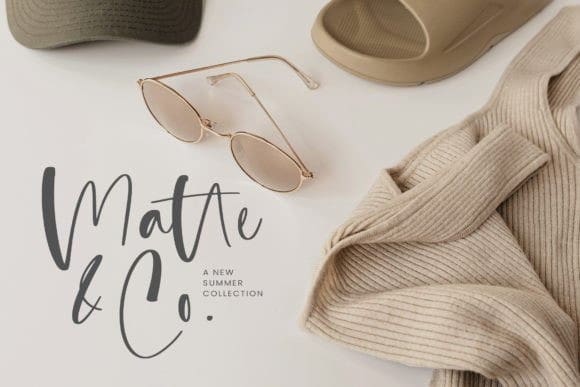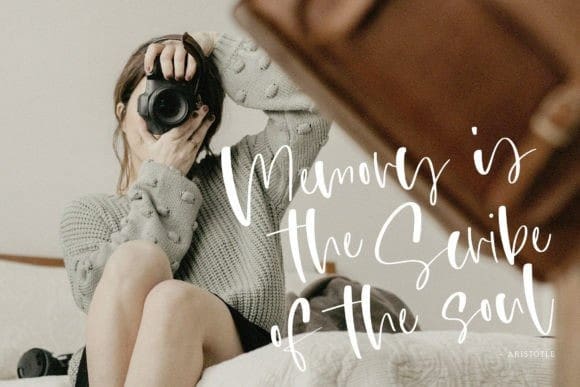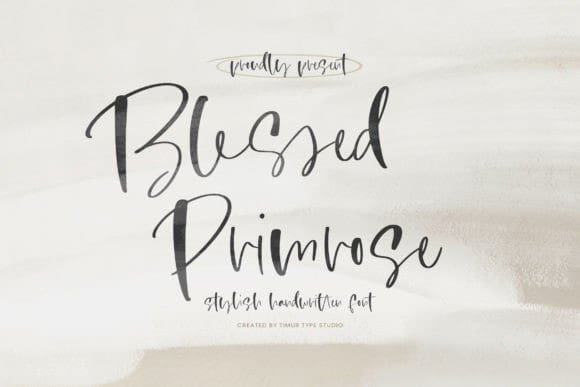
Blessed Primrose Font
Blessed Primrose Font is a dazzling script font that epitomizes elegance and charm. Its graceful flourishes and intricate details captivate the eye, making it perfect for wedding invitations, branding, and signage. With its timeless appeal and delicate curves, BlessedPrimrose adds a touch of sophistication to any design project.